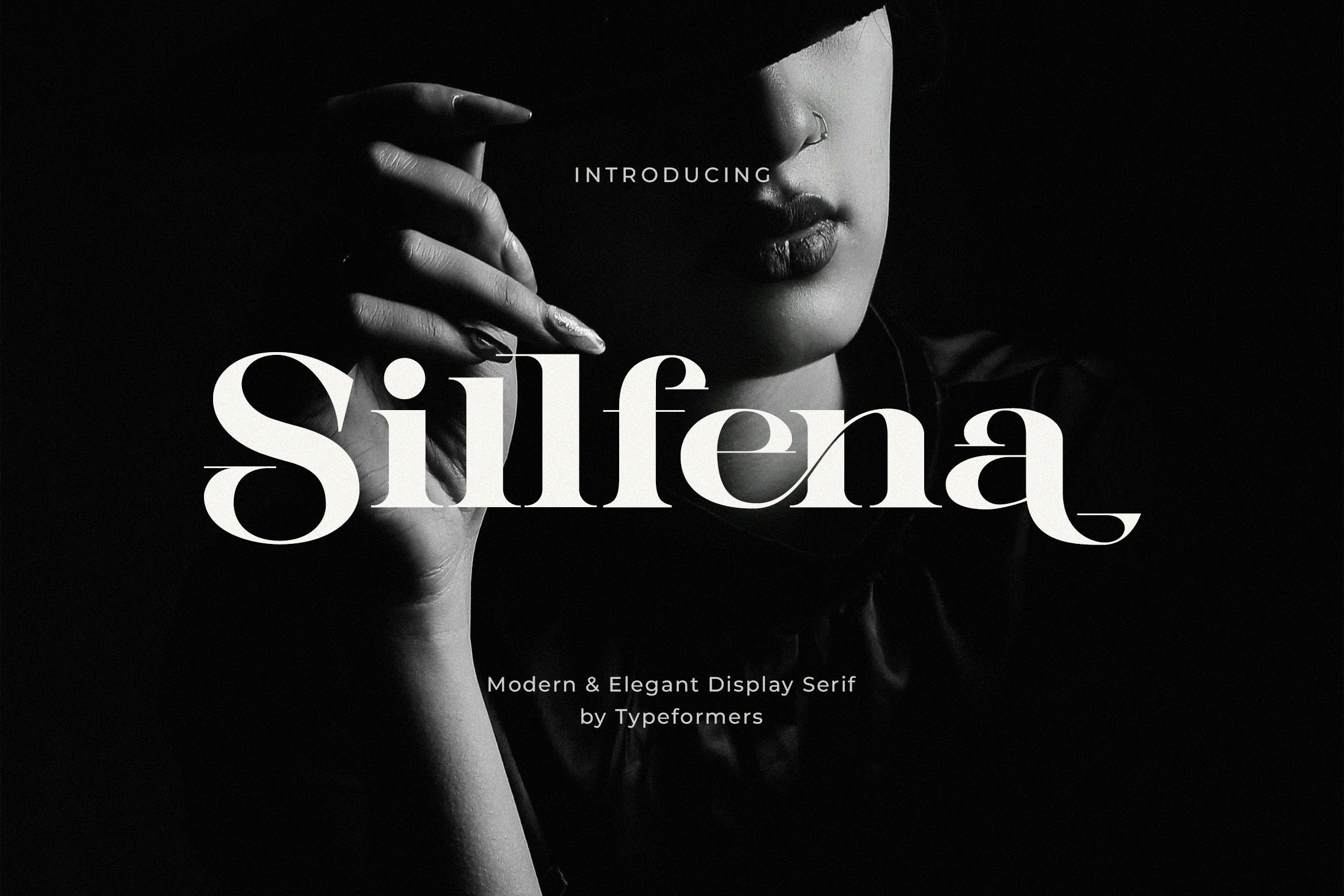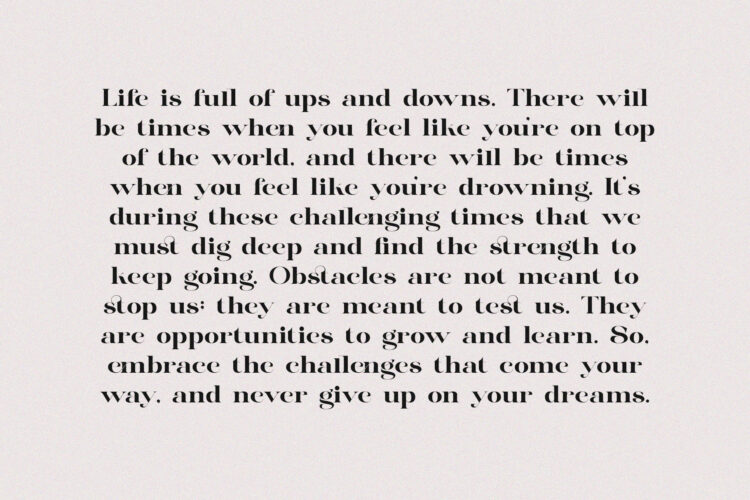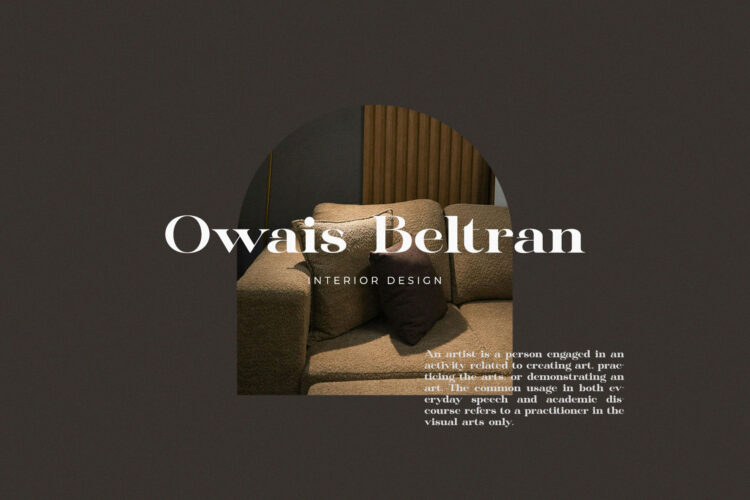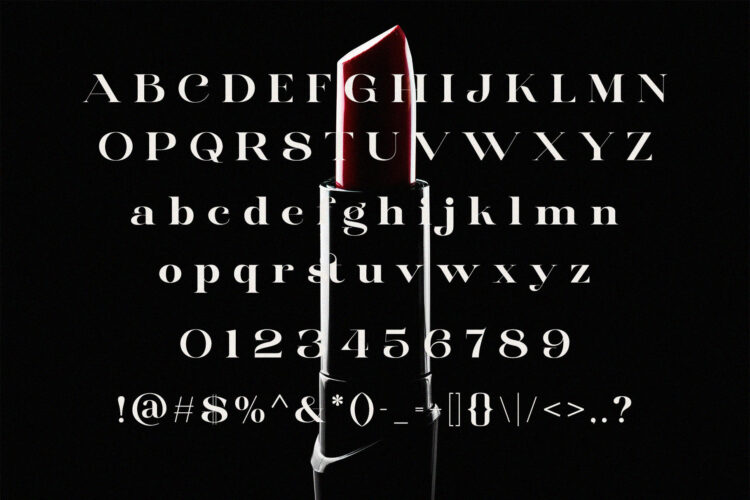
Introducing Sillfena – Modern Elegant Serif.
Sillfena is a modern and simple font, best used as a display for headings, logos, branding, magazines, product packaging and invitations.